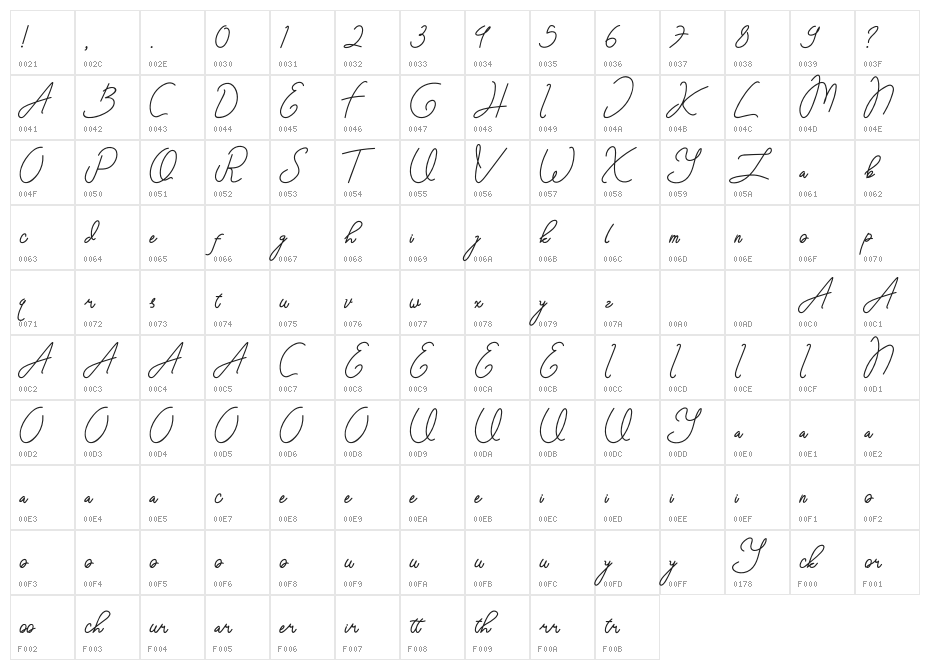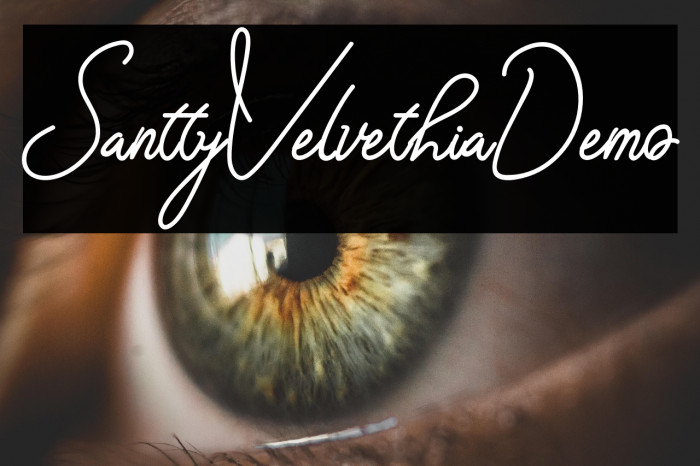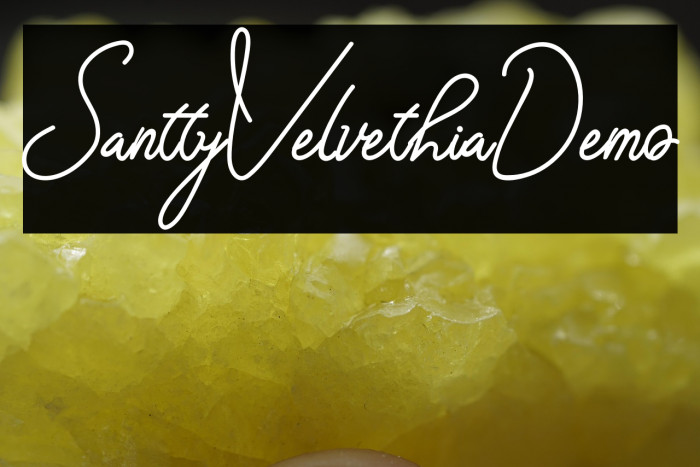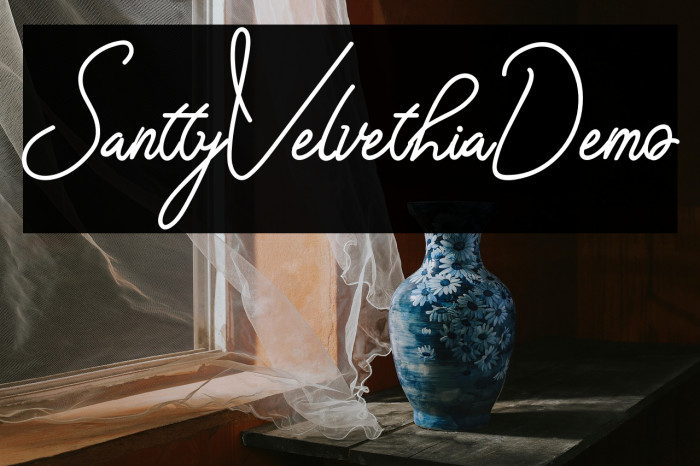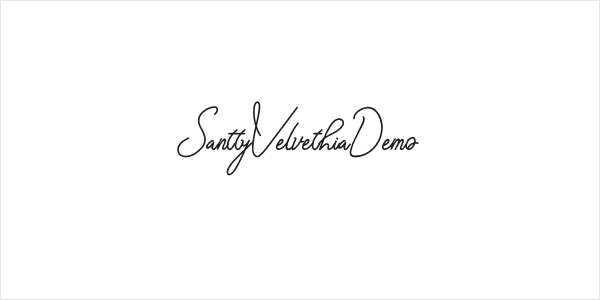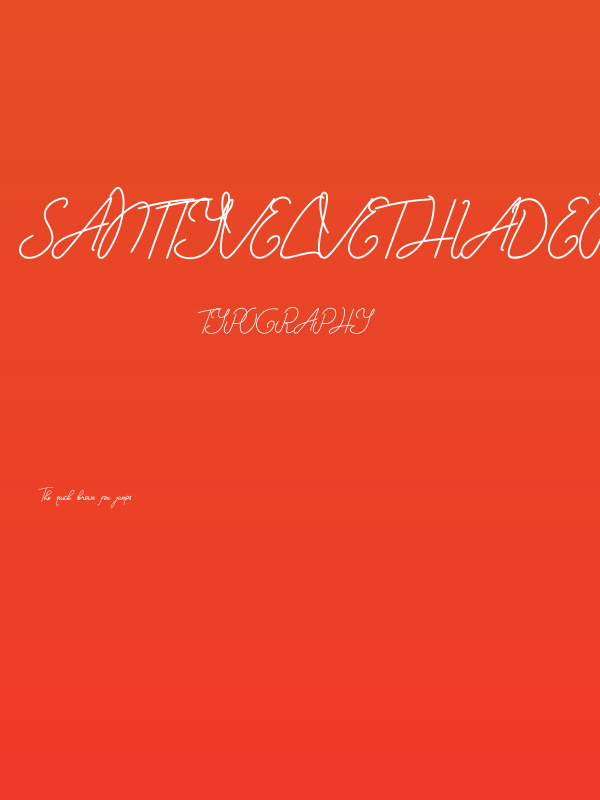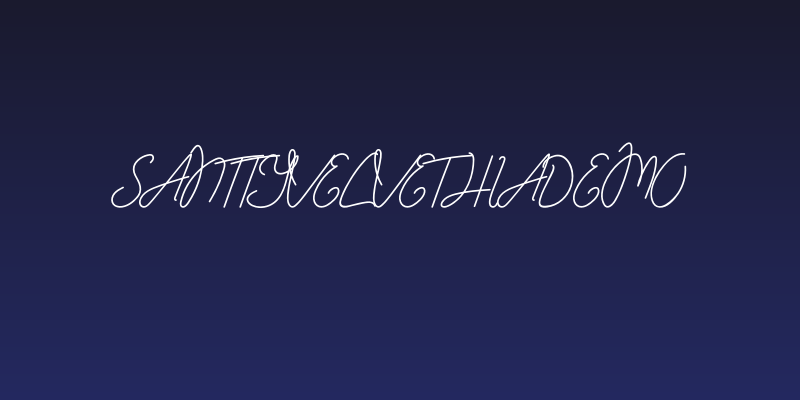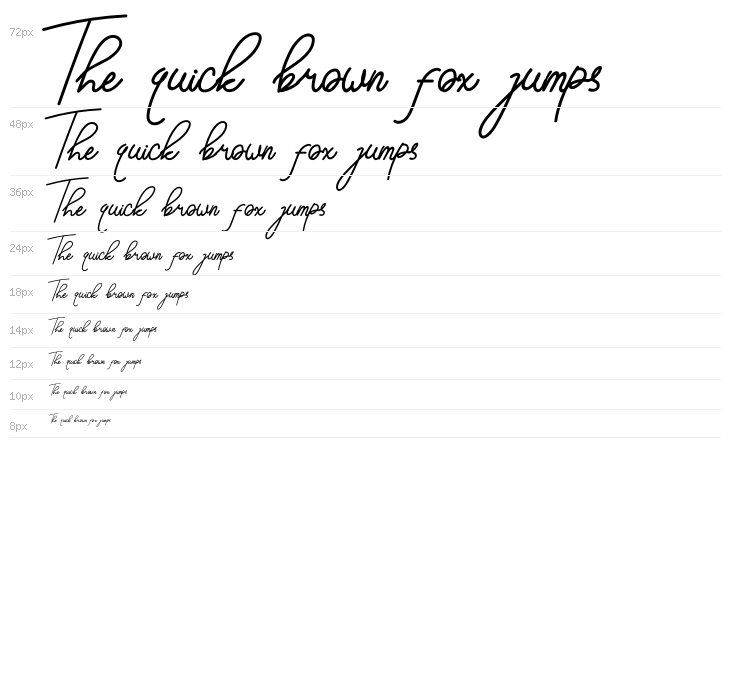
SanttyVelvethiaDemo Font
SanttyVelvethiaDemo Description
This elegant script font features a flowing, cursive style with smooth, interconnected strokes that create a sense of fluidity and grace. The uppercase letters are tall and slender, with sweeping curves and loops that add a touch of sophistication. The lowercase letters maintain a consistent rhythm, with slightly exaggerated ascenders and descenders that enhance the font's decorative appeal. Numbers are styled to match the overall aesthetic, maintaining the same graceful curves. The special characters, although not fully visible, suggest a continuation of the script's elegant theme. This font is perfect for projects that require a personal, handwritten touch, such as invitations, greeting cards, and branding materials.
| Overall Style | Elegant, Decorative |
| Proposed Projects | Ideal for wedding invitations, personal branding, greeting cards, and elegant packaging. |